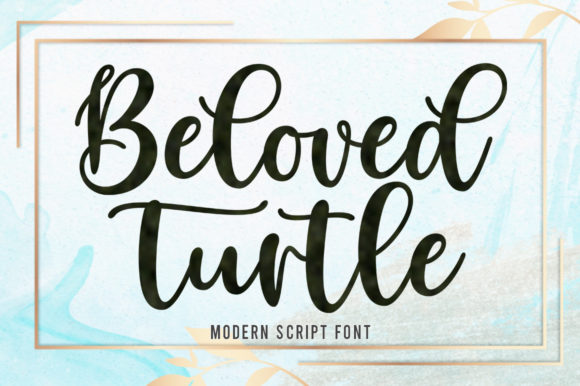
Introducing Beloved Turtle Font: The Ultimate Script Font for Stunning Designs
Are you on the hunt for a font that can elevate your designs to the next level? Look no further than the Beloved Turtle Font, a beautiful and stylish script font that is sure to capture your heart. With its ravishing style and PUA encoding, this font is the perfect choice for designers, artists, and crafty enthusiasts looking to create gorgeous designs that stand out from the crowd.
The Story Behind Beloved Turtle Font
The Beloved Turtle Font is a carefully crafted script font that is designed to bring a touch of elegance and sophistication to your designs. Its unique and flowing style is perfect for creating beautiful quotes, posters, logos, and more. Whether you’re a professional designer or a DIY enthusiast, this font is sure to inspire you to create something truly special.
What Makes Beloved Turtle Font So Special?
So, what sets the Beloved Turtle Font apart from other script fonts on the market? Here are just a few reasons why this font is a cut above the rest:
- PUA Encoding: The Beloved Turtle Font is PUA (Private Use Area) encoded, which means that you can access all glyphs and swashes with ease. This makes it easy to create beautiful and intricate designs that showcase your creativity.
- Ravishing Style: The font’s unique and flowing style is sure to turn heads. Its elegant and sophisticated look makes it perfect for creating designs that are both stylish and eye-catching.
- Versatility: The Beloved Turtle Font is incredibly versatile, making it suitable for a wide range of design projects. From posters and logos to quotes and social media graphics, this font can be used to create a variety of stunning designs.
- Pair it with Other Fonts: The Beloved Turtle Font pairs well with other fonts, making it easy to create stunning combinations. Try pairing it with a bold sans-serif font for a striking contrast.
- Experiment with Swashes: The font’s PUA encoding makes it easy to access a range of swashes and glyphs. Experiment with different swashes to add a touch of elegance to your designs.
- Use it for Quotes and Posters: The Beloved Turtle Font is perfect for creating beautiful quotes and posters. Its elegant style makes it easy to create designs that are both stylish and impactful.
The Benefits of Using Beloved Turtle Font
So, why should you choose the Beloved Turtle Font for your designs? Here are just a few benefits of using this amazing font:
- Elegance and Sophistication: The Beloved Turtle Font brings a touch of elegance and sophistication to your designs, making them stand out from the crowd.
- PUA Encoding: The font’s PUA encoding makes it easy to access a range of glyphs and swashes, giving you the flexibility to create stunning designs.
Who Can Benefit from Beloved Turtle Font?
The Beloved Turtle Font is perfect for a wide range of designers, artists, and crafty enthusiasts, including:
- Graphic Designers: Graphic designers will love the Beloved Turtle Font for its elegance and sophistication. It’s perfect for creating stunning logos, posters, and brochures.
- Artists: Artists can use the Beloved Turtle Font to add a touch of elegance to their artwork. It’s perfect for creating beautiful quotes, posters, and social media graphics.
- Crafty Enthusiasts: Crafty enthusiasts will love the Beloved Turtle Font for its ease of use and versatility. It’s perfect for creating stunning DIY projects, such as handmade cards and gift tags.
In conclusion, the Beloved Turtle Font is a beautiful and stylish script font that is sure to capture your heart. With its ravishing style and PUA encoding, this font is the perfect choice for designers, artists, and crafty enthusiasts looking to create gorgeous designs. Whether you’re a pro or a beginner, this font is easy to use and versatile, making it perfect for a wide range of design projects. So why wait? Fall in love with the Beloved Turtle Font today and take your designs to the next level!